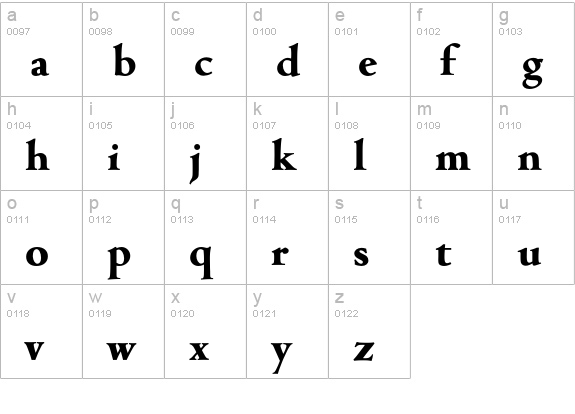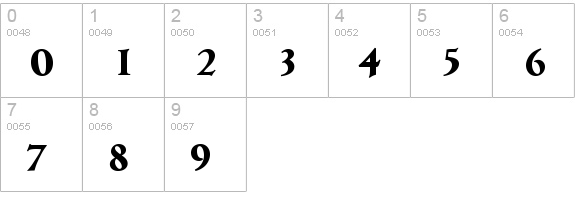
Cambridge-Bold Font Details
Cambridge-Bold is a strong, high-contrast variant in the Cambridge typeface family \xE2\x80\x94 well suited to headlines, attention-grabbing titles, and strong calls-to-action.
Introducing Cambridge-Bold, a sleek and modern font that exudes elegance and sophistication. With its bold and distinct letterforms, Cambridge-Bold is perfect for making a statement in any design project. This versatile typeface is ideal for headlines, posters, branding, and more. What sets Cambridge-Bold apart is not only its striking appearance but also the fact that it is available for free download at FontsMarket.com. Yes, you read that right - this high-quality font can be yours at no cost, allowing you to elevate your designs without breaking the bank. Whether you're a seasoned designer looking to add a fresh touch to your creations or a newcomer seeking a standout font for your projects, Cambridge-Bold is the perfect choice. Download it today and unleash your creativity with this stunning typeface.